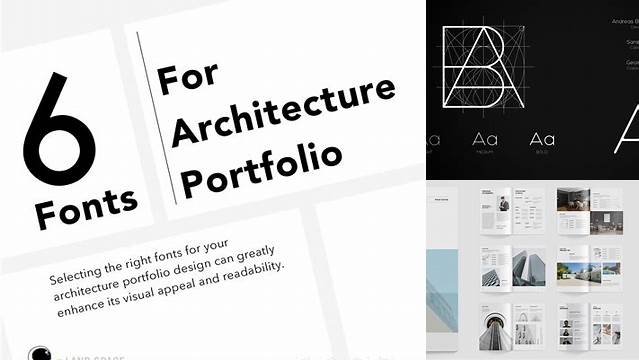
Free Fonts For Architecture Portfolios: Your Ultimate Guide
Hey everyone! Ever wondered how the right font can seriously level up your architecture portfolio? It's like the secret sauce, you know? I'm talking about the difference between a portfolio that's just okay and one that wows potential clients or employers. Seriously, the font you choose can make or break the vibe of your presentation. Let's dive into some awesome free fonts for architecture portfolios that'll make your work shine.
1. Choosing the Right Free Fonts: Setting the Tone
Alright, before we jump into specific fonts, let's talk about the why. Why is font choice so crucial? Think about it like this: your portfolio is a visual representation of your design philosophy, your attention to detail, and your overall brand. The font you use is an extension of that brand. It communicates something without you even saying a word. Is your style modern and sleek? A clean, sans-serif font will be your best friend. Are you leaning towards a more classic or traditional aesthetic? A serif font with a touch of elegance might be the way to go. But here's the catch, picking the wrong font can be a total design faux pas. Imagine using a clunky, overly decorative font for a minimalist project – the clash would be jarring, right? It's like wearing a tuxedo to a beach party – it just doesn't fit. The goal is to choose fonts that are not just visually appealing, but also complement the projects you're showcasing. You want the typography to enhance your designs, not distract from them. Another crucial aspect is readability. Your portfolio is meant to showcase your work, not frustrate the viewer. Ensure that your chosen fonts are easy to read, even at smaller sizes. Avoid overly stylized fonts for body text. Save those for headlines and titles. Remember, the primary function of your portfolio is to communicate your design ideas effectively. The fonts you choose should support that goal. Always consider the context. Where will your portfolio be displayed? Is it a digital PDF, a printed book, or a website? The font rendering might differ based on the platform. A font that looks great on your computer screen might appear pixelated or blurry in print. Do a test run by printing a sample page before finalizing your font choices. When it comes to selecting free fonts for your architecture portfolio, consider this a valuable opportunity to express your design sensibilities. Think of your portfolio as a complete design project – where every element works together to tell a story about you and your capabilities. And remember, don't be afraid to experiment. Try out different font combinations and see what feels right for your projects.
2. Best Free Sans-Serif Fonts for Architectural Portfolios
Okay, let's get into the good stuff: some killer sans-serif fonts! Sans-serif fonts are the cool kids of the design world, known for their clean lines and modern vibe. They work exceptionally well in architecture portfolios because they convey a sense of clarity and professionalism. Think of them as the minimalist dress of the font world – simple, elegant, and always in style. One of the absolute go-to choices is Roboto. This font is incredibly versatile, and it's designed for legibility across all devices. It's clean, it's functional, and it has a friendly feel. Seriously, it's a workhorse. You can use it for everything from headings to body text. Another fantastic option is Open Sans. Open Sans is another super readable font and is very popular with good reason. Its open forms and neutral appearance make it a great choice for both print and digital portfolios. Plus, it's easy on the eyes, which is a huge bonus for anyone spending time reviewing your work. Then, we have Lato. It's a sans-serif font that's both approachable and elegant. It has a warm, friendly character, which is great if your design style is all about collaboration and user-friendliness. Montserrat is another solid contender. It's a geometric sans-serif font that's clean, modern, and a little bit bold. It's great for headlines and titles, and can add a strong visual impact to your portfolio. Raleway, this is a bit more stylized but still highly readable. It has a touch of personality. And if you want something a little more distinctive, consider Poppins. This font has rounded terminals, which give it a friendly and approachable feel. It's perfect for a portfolio that wants to project a sense of warmth and creativity. Using sans-serif fonts is excellent because of their inherent simplicity. They allow your architectural designs to take center stage without being cluttered by overly decorative typography. The legibility factor is also important, since architectural drawings and descriptions require precision. Choosing one of the best free sans-serif fonts ensures that your portfolio looks professional and easy to read. The key is to select a font that fits your personal design style and the overall aesthetic you wish to project.
2.1. Roboto Font: A Versatile Choice
Let's talk a bit more about Roboto because it is super versatile. This font family includes a wide range of weights and styles, which makes it perfect for any part of your architecture portfolio. You can use the bold versions for your headings, the regular versions for your body text, and the light versions for captions or annotations. The beauty of Roboto lies in its clean, modern aesthetic. It’s not overly stylized, so it doesn’t distract from your architectural designs. Instead, it provides a framework for presenting your work clearly and effectively. Roboto is optimized for readability across different devices and platforms. This is vital, because you want your portfolio to look great whether it’s viewed on a computer, a tablet, or a smartphone. The consistent rendering of Roboto ensures your portfolio looks polished no matter where it's seen. One of the advantages of Roboto is its wide availability. It's a Google font, so it's easy to access and use. Plus, it’s free for commercial use, which means you don’t have to worry about any licensing issues. The overall versatility of Roboto makes it one of the best free fonts for architecture portfolios. Its ability to adapt to different design needs and contexts makes it a top pick. The font is simple, clean, and easily adaptable for all sorts of portfolio needs, like headlines, captions, or body text. No matter the context, your portfolio will look great.
2.2. Open Sans: Readable and Popular
Open Sans is another essential font. It's super popular, for good reason: it's one of the most readable fonts out there. Designed with excellent legibility in mind, it's perfect for long blocks of text in your portfolio. It's easy on the eyes. If you're using it as body text, it won't strain the reader, which is crucial, because you want people to focus on your designs, not struggle to read the words. Open Sans has an open, friendly appearance, which makes it ideal for communicating complex architectural ideas. It is available in various weights, allowing you to create a clear visual hierarchy in your portfolio. You can use bold versions for your headings, regular weights for your body text, and lighter weights for captions. This variety helps guide the reader's eye, making your portfolio more engaging and easy to follow. Another massive benefit of Open Sans is its widespread use. Being a Google font, it is widely accessible. This means you can easily integrate it into any design software or platform you are using to create your portfolio. Plus, it’s free, so you don’t have to deal with any licensing headaches. The neutrality of Open Sans is a huge benefit for architecture portfolios. It doesn't have a strong personality, so it won't clash with your designs. Instead, it allows your work to stand out. If you want your portfolio to project professionalism and clarity, Open Sans is a great choice. The free font makes it easy to display your designs in a way that's both readable and aesthetically pleasing.
2.3. Lato: Approachable Elegance
Let's dive into Lato. Lato is one of those fonts that strikes the perfect balance between approachability and elegance. It has a warm, friendly character that instantly makes your portfolio more inviting. If you want your work to come across as collaborative and user-friendly, this is a great choice. The font has a semi-rounded structure that lends itself to readability. It is designed to be easy on the eyes, so viewers can easily scan your projects and absorb the information. This is particularly valuable for architectural portfolios, which often involve long descriptions and technical details. It has a wide range of weights and styles, offering plenty of flexibility when it comes to creating a visual hierarchy. You can use the bolder weights for headlines and titles, and the regular weights for the body text and smaller captions. This helps guide your audience through your portfolio. The versatility of Lato allows you to use it across a variety of designs. You can create a cohesive look throughout your portfolio, which reinforces your branding and reinforces a strong sense of professionalism. It’s another Google font, so it's readily available and easy to integrate into your designs. You don't have to worry about any licensing issues. The neutral nature of Lato makes it perfect for architectural presentations. It is stylish and complements the work you have to offer. The goal is to make it easy for viewers to look at your work, and Lato can provide that. Using free fonts like Lato adds a touch of elegance.
2.4. Montserrat: Bold and Modern
Alright, let's talk about Montserrat. It's a fantastic font. This geometric sans-serif is bold, modern, and has a strong visual impact. If you want your architecture portfolio to stand out, Montserrat is an excellent choice. The font's clean, sharp lines make it ideal for headlines, titles, and other design elements that need to grab attention. It's great for drawing the reader's eye, adding extra style and making your work pop. Montserrat is incredibly versatile. The font is great for a variety of applications, from headings to smaller text. This means you can use it to create a consistent, professional look throughout your portfolio. The variety of weights allows you to create a clear visual hierarchy, guiding your audience's attention to the most important details. The bold nature of Montserrat can be used strategically to highlight key information. This helps your audience quickly grasp the core concepts of your design. If you have any specific achievements or highlights you want to draw attention to, you can use a bold weight to make them pop. This also makes your portfolio more engaging and dynamic. It is also easily accessible as a Google font. You don’t need to worry about licensing issues, because it's free to use. This is a big plus, because it simplifies the design process, making it accessible to anyone. If your architectural style is modern, Montserrat is a perfect fit. The bold geometric style of the font complements contemporary design aesthetics and makes sure your work looks current and relevant. This makes it one of the best free fonts for your architecture portfolio.
2.5. Raleway: A Stylish Touch
Here’s one to consider: Raleway. This font is a little more stylized than some of the other options. It's still incredibly readable. It has a touch of personality that can make your portfolio stand out. The elegant, slightly condensed letterforms of Raleway bring a level of sophistication to your design. If you want to project an image of professionalism combined with a unique design flair, this font could be a great fit. It is designed to be easy to read, so you don't have to worry about it being hard on the eyes. The slightly condensed nature of Raleway can be a huge benefit, allowing you to fit more text into a given space without sacrificing readability. This is particularly useful when you have a lot of information you want to include in your portfolio. The font's wide range of weights gives you plenty of flexibility in your design. You can use lighter weights for body text, making it easy on the eyes. Or use bolder weights for headings, drawing attention to key information. This allows you to create a dynamic visual experience that helps the reader navigate your work with ease. Being a Google font, Raleway is easily accessible. It's completely free to use, so you don't have to worry about licensing or hidden costs. Another benefit is its versatility. Raleway can adapt to different design styles. It has a touch of personality, so it fits with any aesthetic. With free fonts like Raleway, your work will stand out.
2.6. Poppins: Friendly and Approachable
Next up: Poppins. Poppins is a wonderful font choice because it has rounded terminals. It has a friendly, approachable feel, making it ideal for portfolios that want to convey a sense of warmth and creativity. It has a clean, modern style, and it doesn’t sacrifice readability, which is essential for architectural presentations. Its rounded letterforms create a sense of friendliness that sets a welcoming tone for your portfolio. This can be a great advantage if you want to showcase your work as part of a collaborative environment. Poppins is incredibly versatile, offering a wide range of weights and styles. You can use it for everything from headings to body text. The flexibility makes it easy to create a professional and consistent look throughout your portfolio. You can use the bolder weights for headlines and the lighter weights for body text, making your portfolio both visually appealing and easy to read. The overall design is clean and clear. This is a huge advantage because it lets your architectural designs take center stage. The typography should complement your designs, not compete with them. It is another Google font, so it is easily accessible and free to use. You don’t have to deal with any licensing issues. This simplifies the design process. If you are looking for free fonts with a great personality, Poppins is a great choice.
3. Serif Fonts for Architectural Portfolios: Classic Elegance
Now, let's talk about the other side of the font coin: serif fonts. If sans-serif fonts are the modern, minimalist choice, then serif fonts are the classic, elegant option. They're characterized by the small strokes or